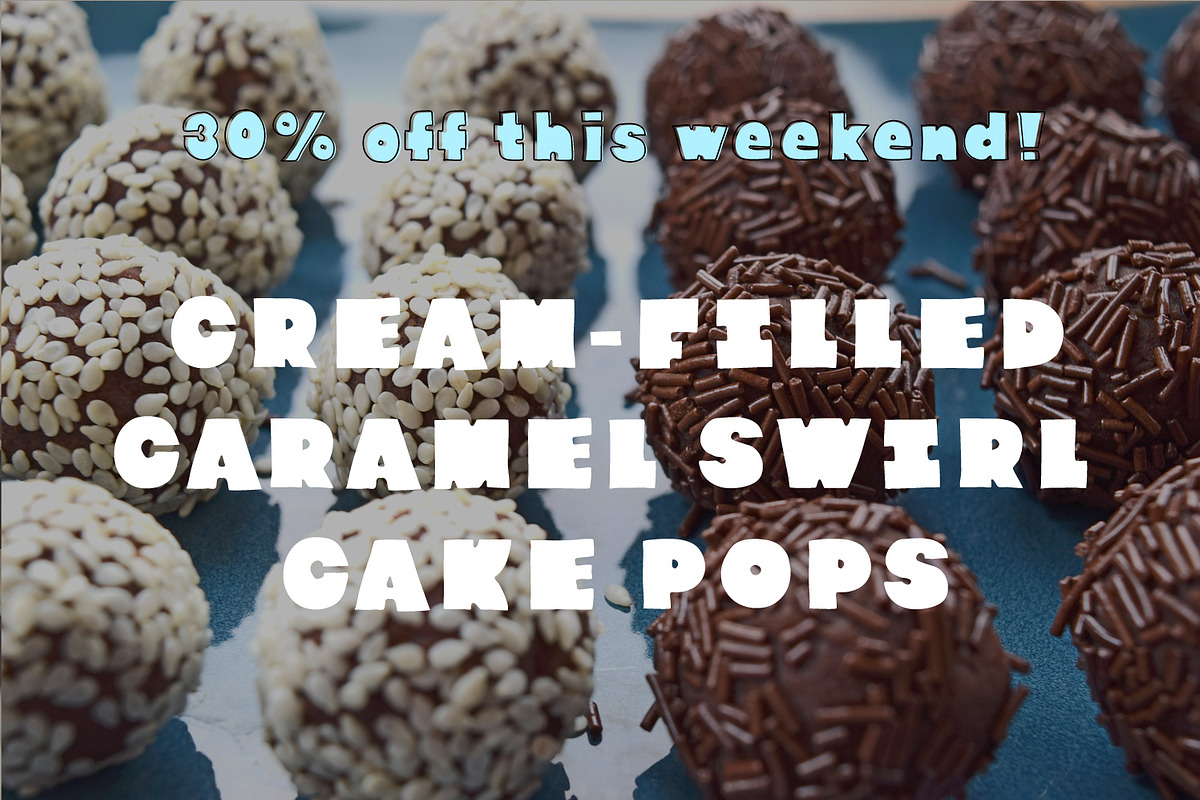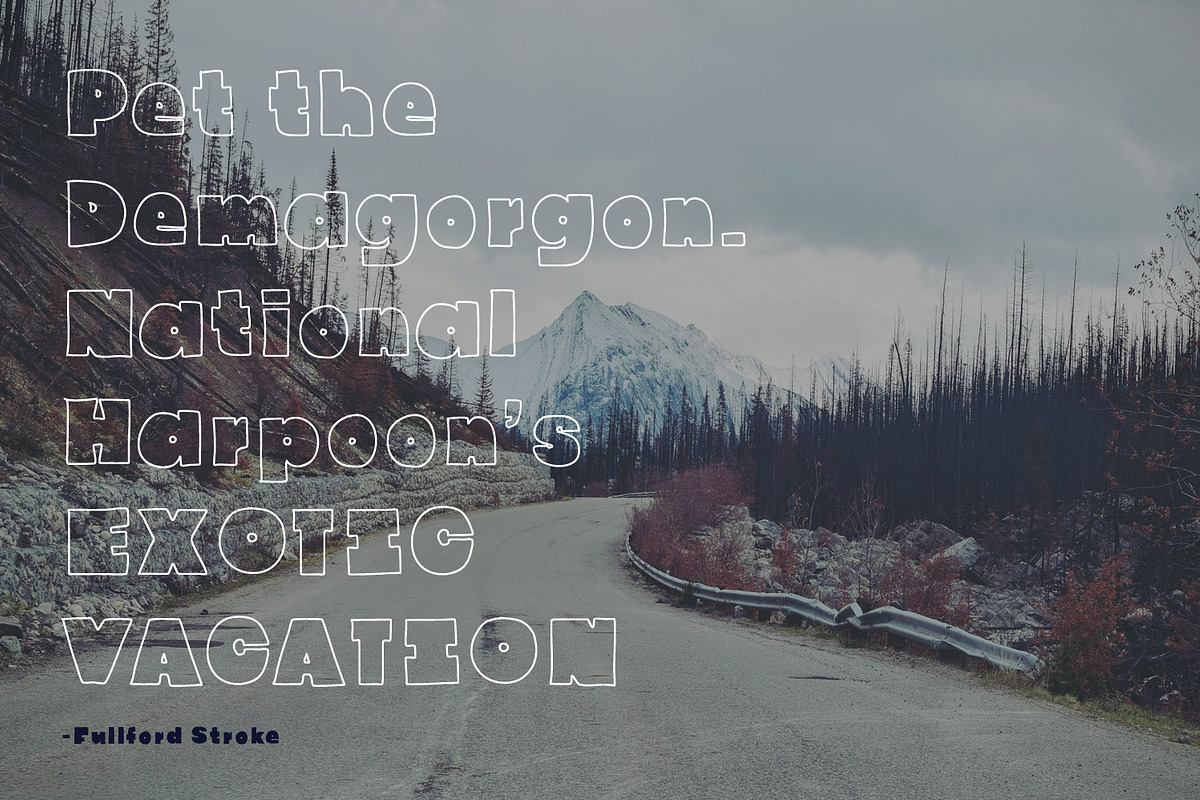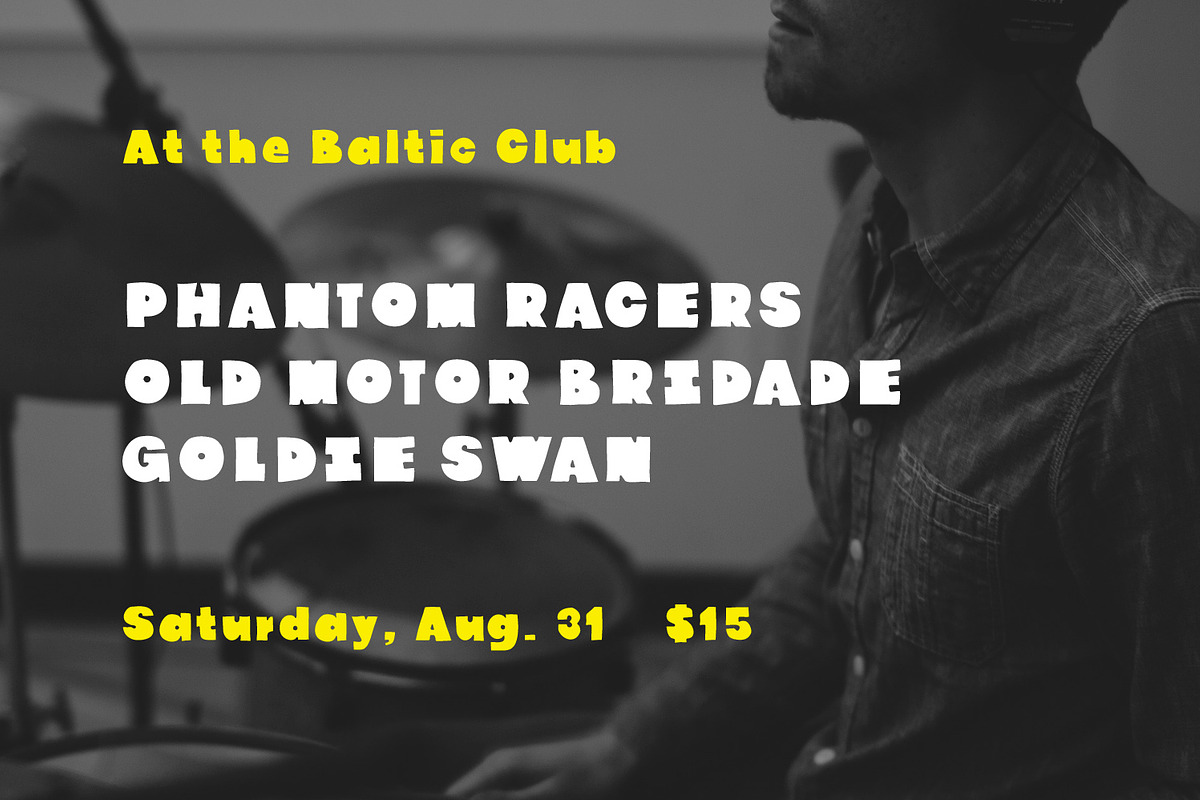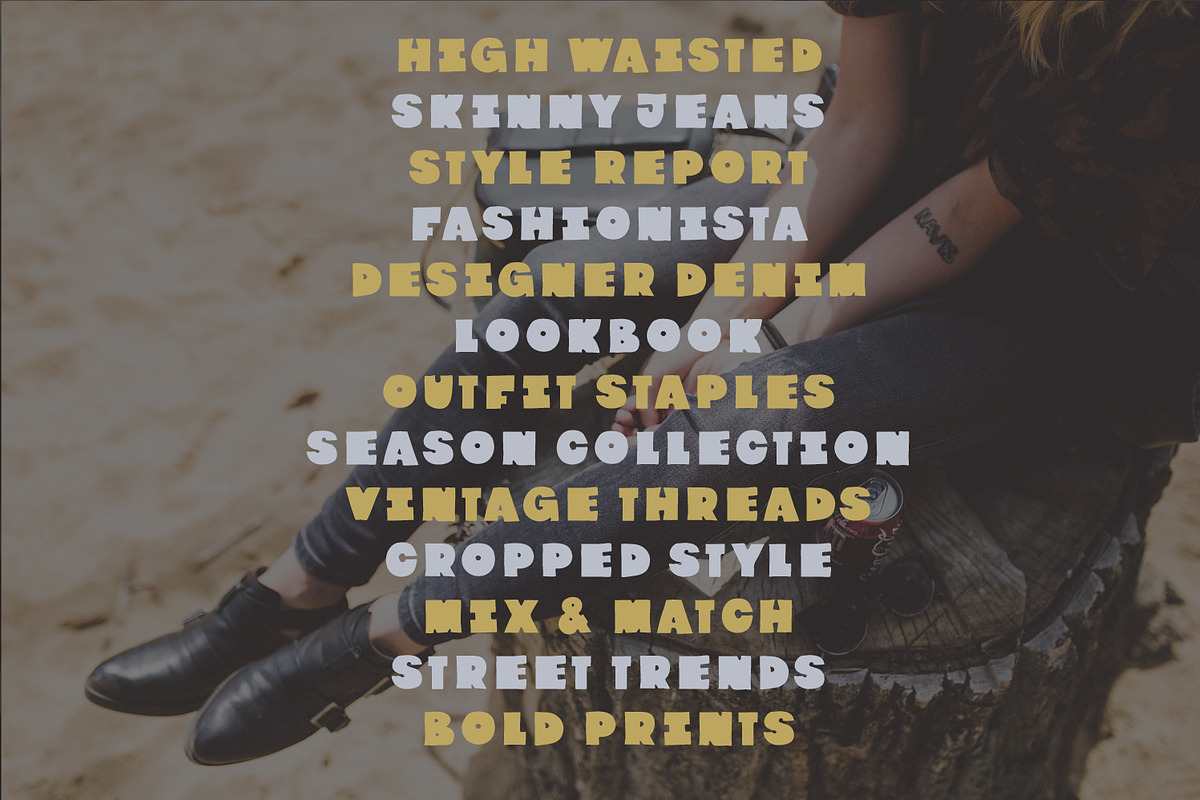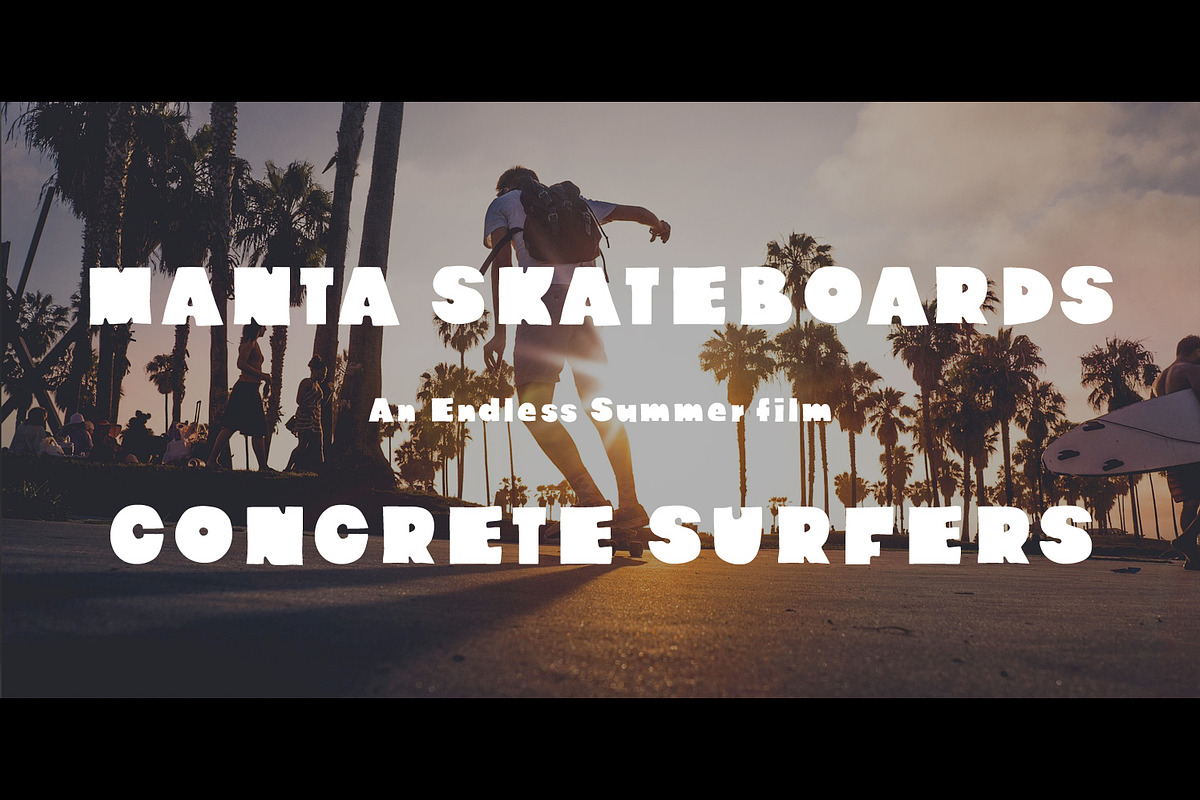
Fullford chunky font
Fullford chunky font by Ekloff is a font selected for branding, posters, packaging, typography.
- Fullford Inner
- Fullford Stroke
Fullford chunky font by Ekloff fits naturally into Branding, posters, packaging, typography.